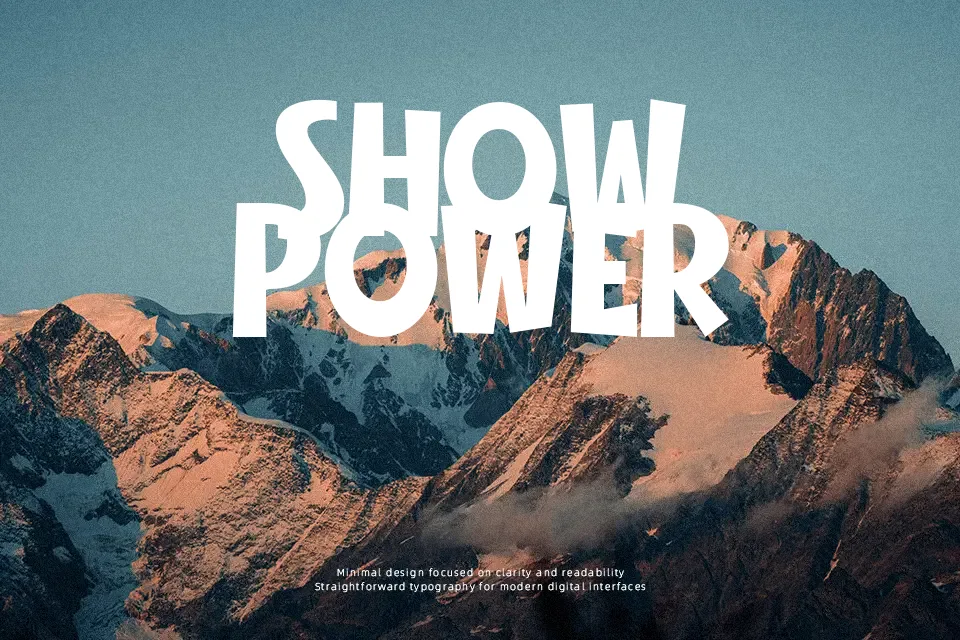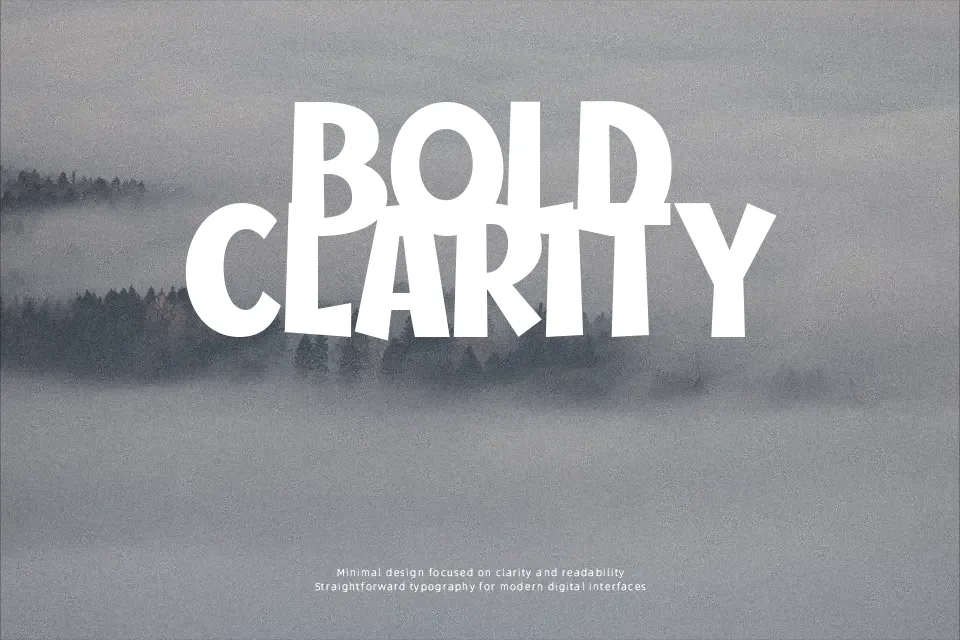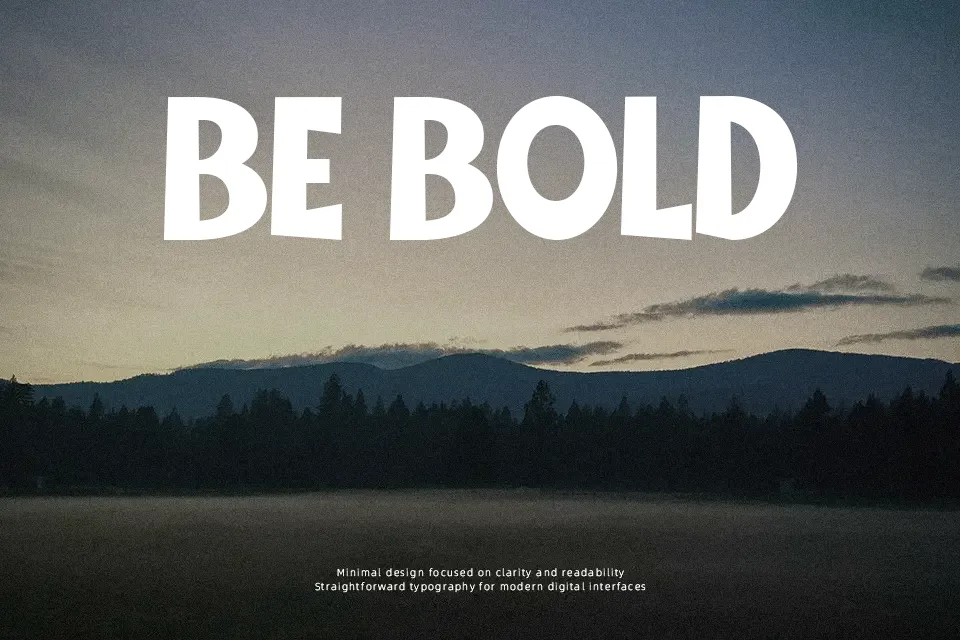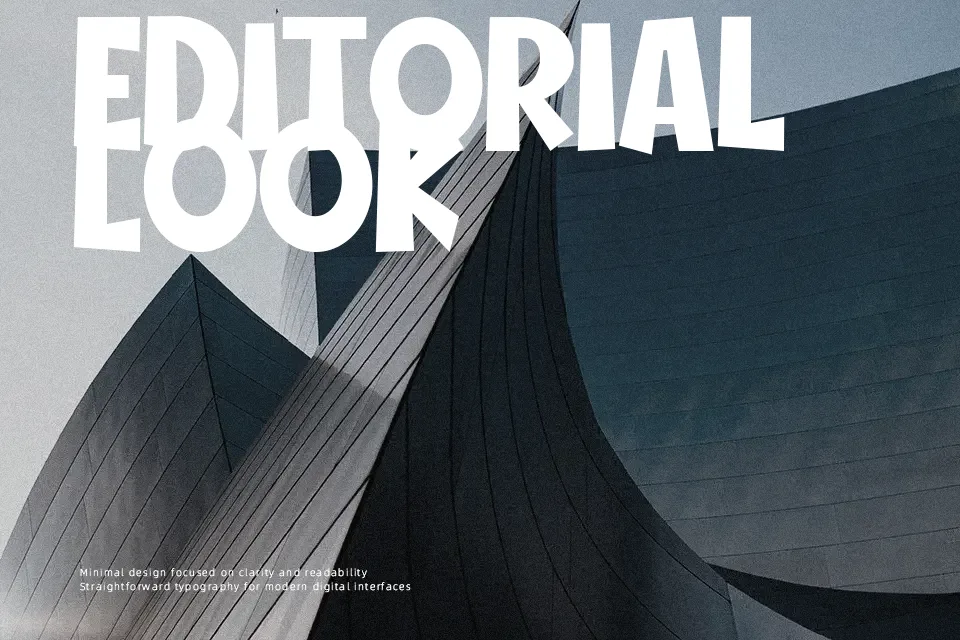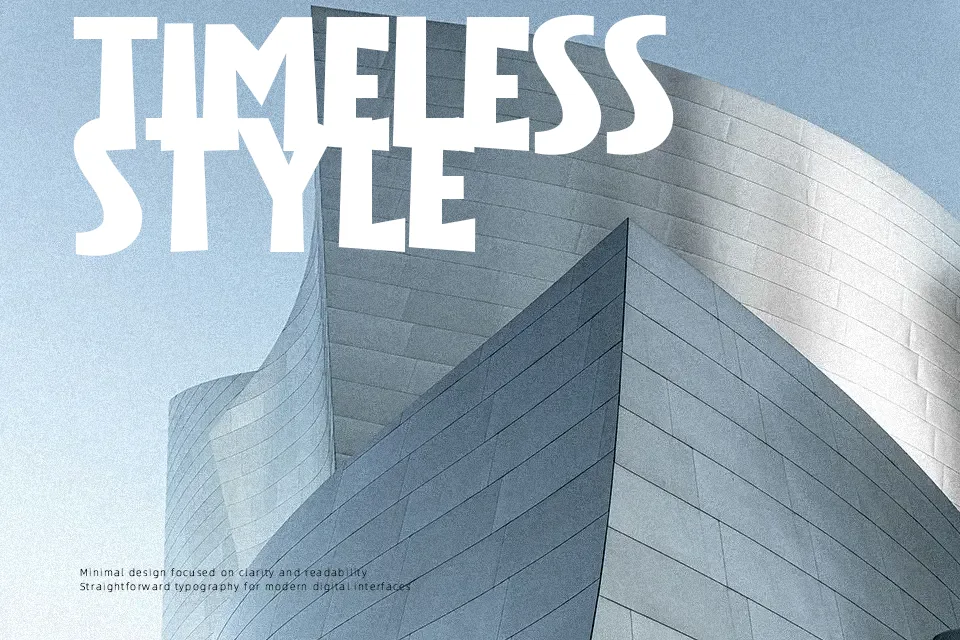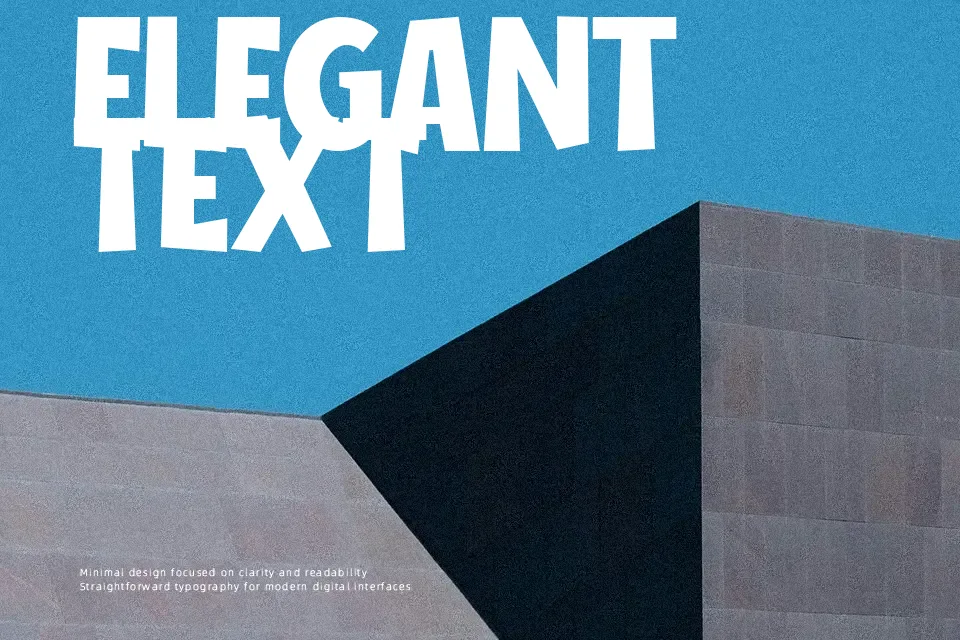
Sunroof & Summer Font
Designed by Wildan Type
Sunroof & Summer Font is a lively cartoon display typeface featuring rounded stroke terminals, thick uniform weights, and an informal handwritten rhythm. The generous counter spaces and balanced letter spacing keep short phrases legible across bold headers, apparel graphics, and snack packaging. Because the characters emphasize a whimsical, carefree aesthetic, the letterforms deliver high visual warmth across large titles and vibrant social graphics. However, the heavy stroke density and informal outlines reduce clarity in small body paragraphs. The typeface remains an effective choice for casual headings, while dense editorial layouts require a more traditional text face.
Best For: children book covers, summer festival flyers, cartoon merchandise, snack food packaging
Not Ideal For: long body text, corporate annual reports, small UI captions, dense legal documents